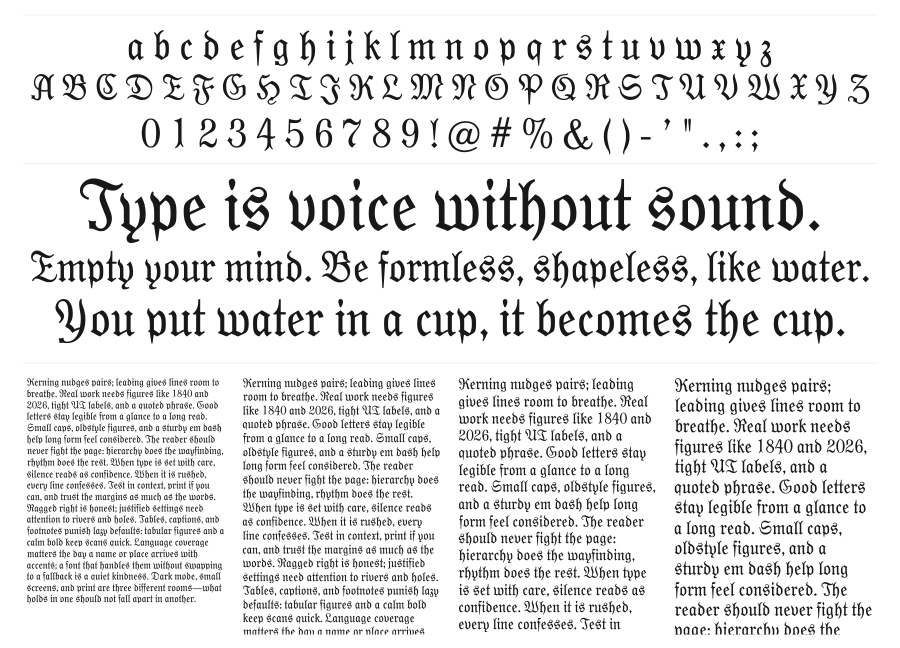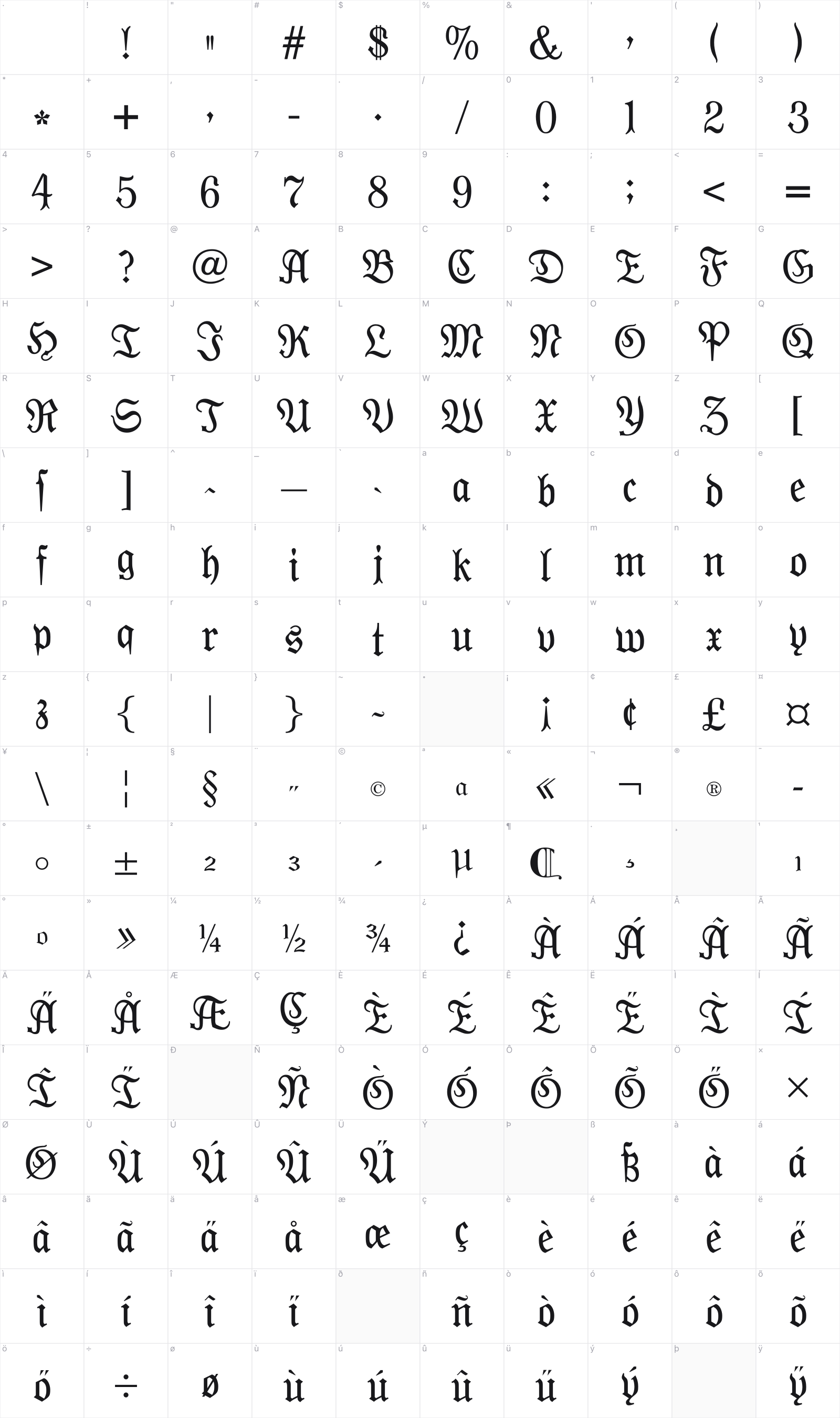
Moderne Fraktur
Moderne Fraktur is a bold blackletter face by Dieter Steffmann, one of the most prolific digitizers of historical German and European typefaces. The letterforms follow traditional Fraktur conventions with their characteristic broken strokes and dense, angular rhythm, but carry enough weight and clarity to hold up well in modern headline use. A strong choice for beer labels, certificates, Germanic cultural projects, or any design that calls for authentic blackletter presence without the illegibility that plagues many Fraktur revivals.